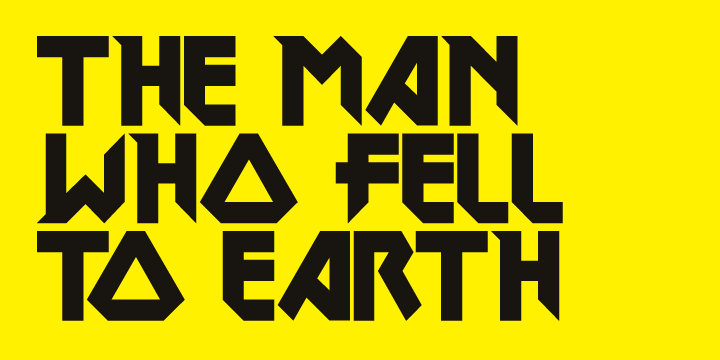
DokterBryce™
Designed by: Jonathan Hill
Designed when: 2008
Design owned by: The Northern Block
DokterBryce
A stylized typeface directly inspired by the movie poster artwork for The Man Who Fell To Earth starring David Bowie.